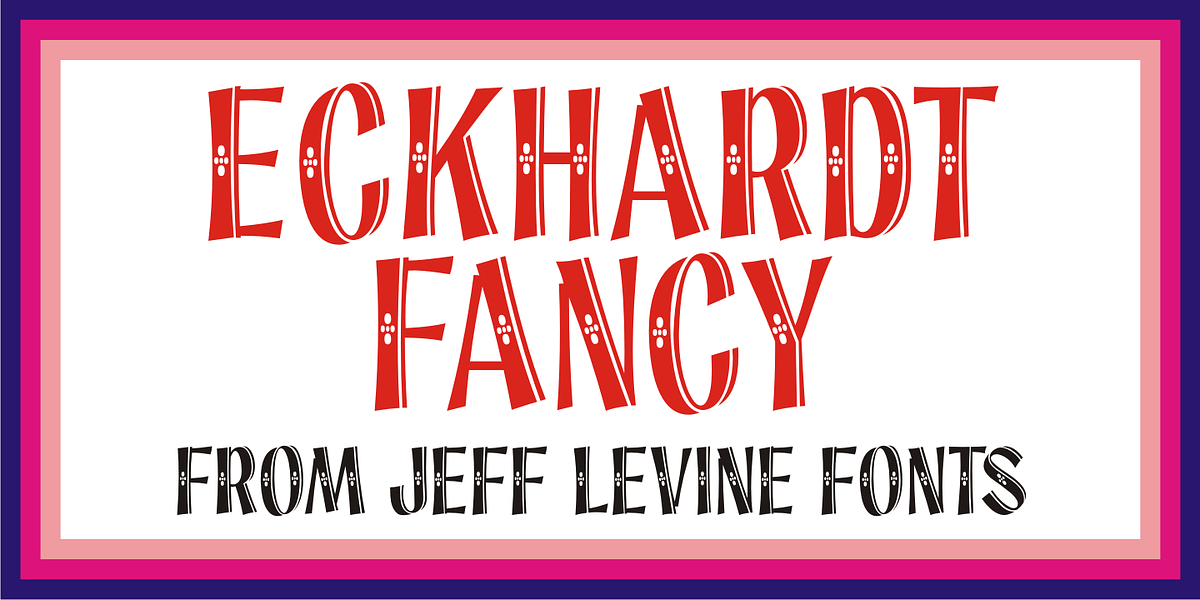
Eckhardt Fancy JNL Font Free Download is a vintage-inspired display typeface with ornate, decorative charm. Drawing influence from early 20th-century sign painting and lettering styles, this font is ideal for retro branding, signage, circus posters, theatrical titles, and nostalgic product packaging. It brings a bold, artistic flair to any project looking for a touch of the past.
Using the Eckhardt Fancy JNL Font Free Download allows you to channel old-school personality and flair into your designs. Its unique curves and embellishments make it a standout choice for headlines and statement pieces that need to be both classic and attention-grabbing.